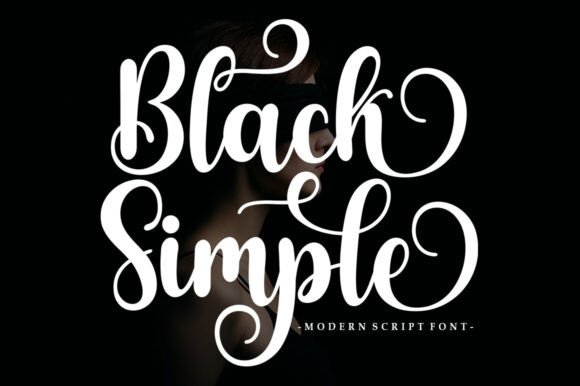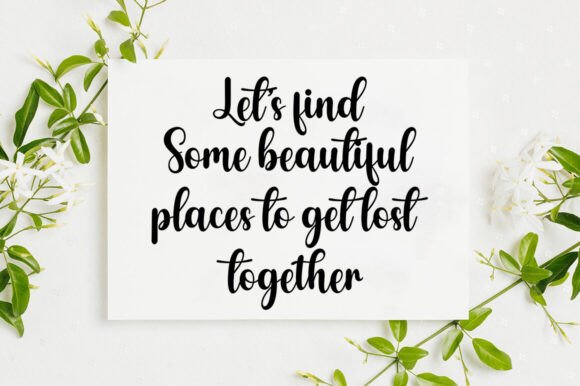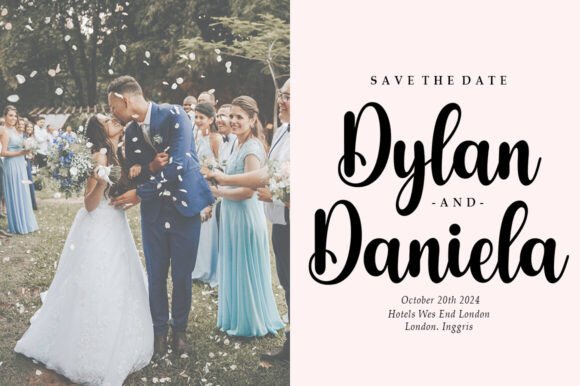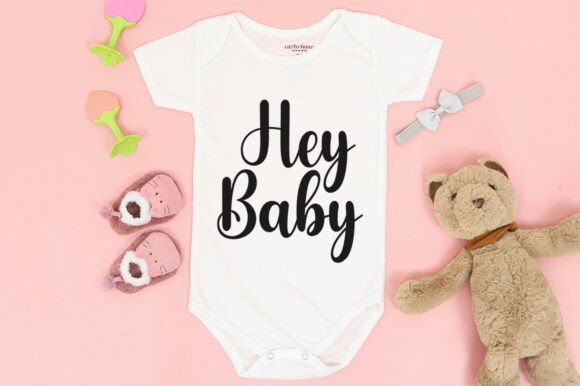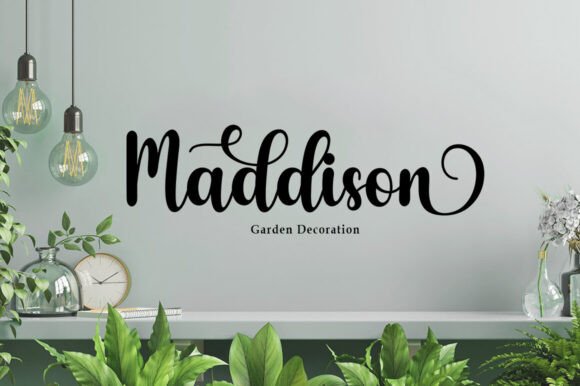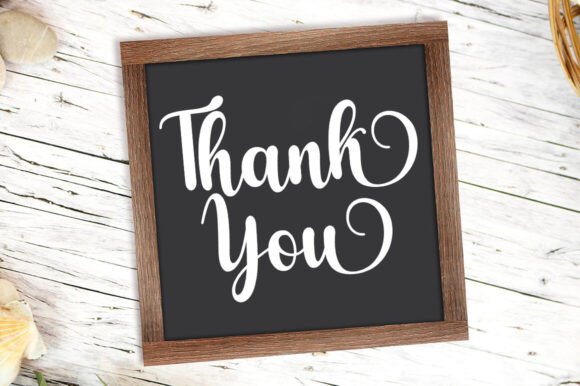
Black Simple Font
Black Simple is a stylish and very fancy handwritten font. This font looks stunning on wedding invitations, thank you cards, quotes, greeting cards, logos, business cards, and every other design that needs a handwritten touch.